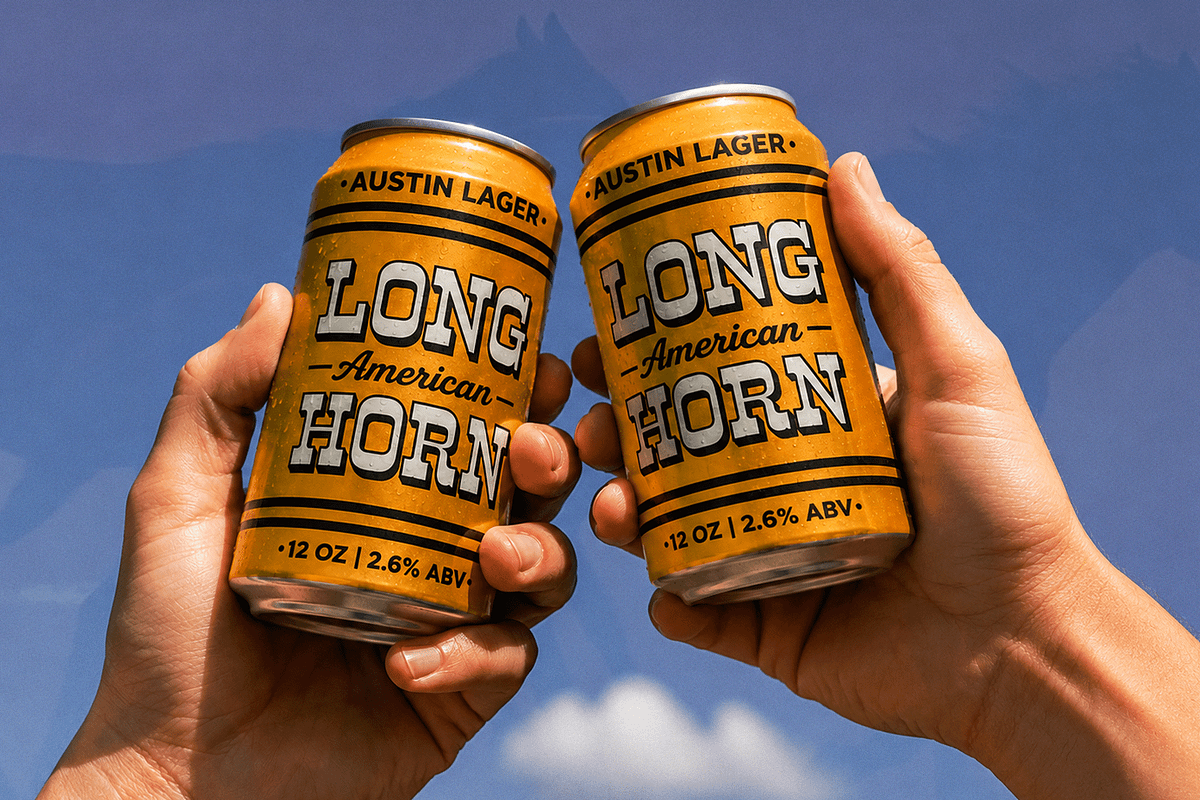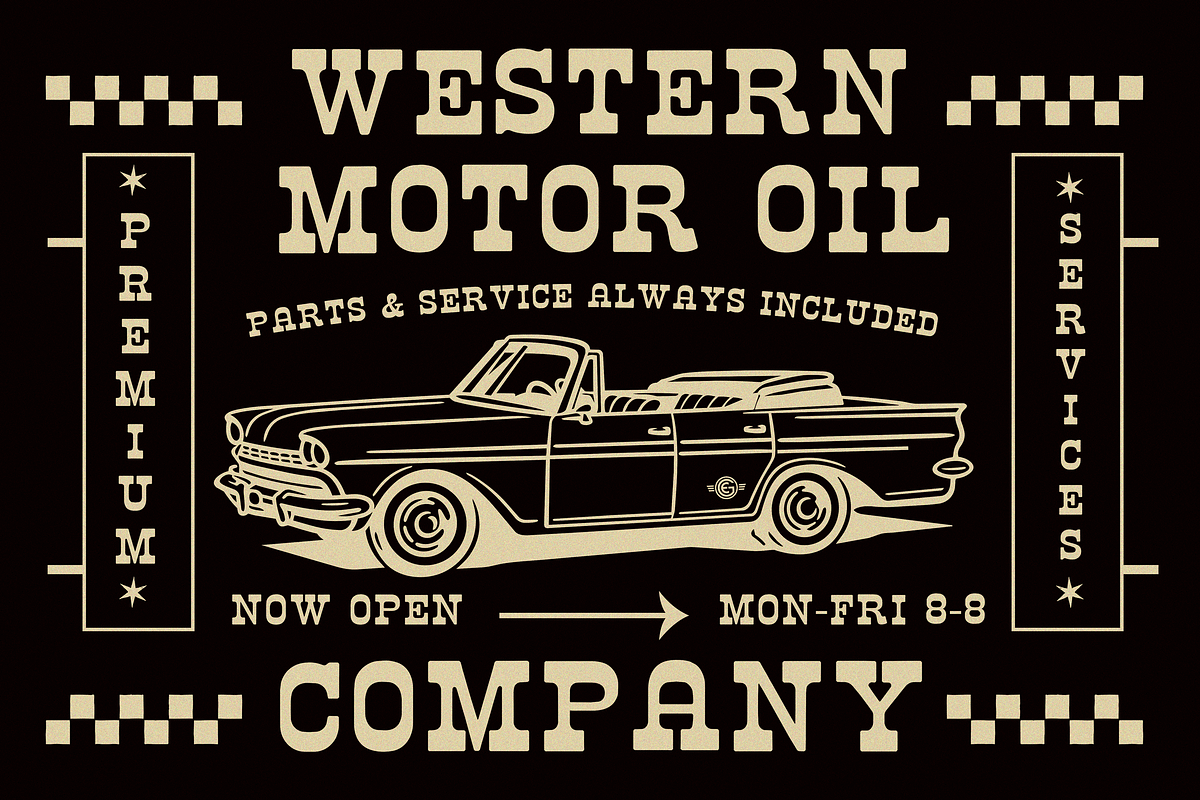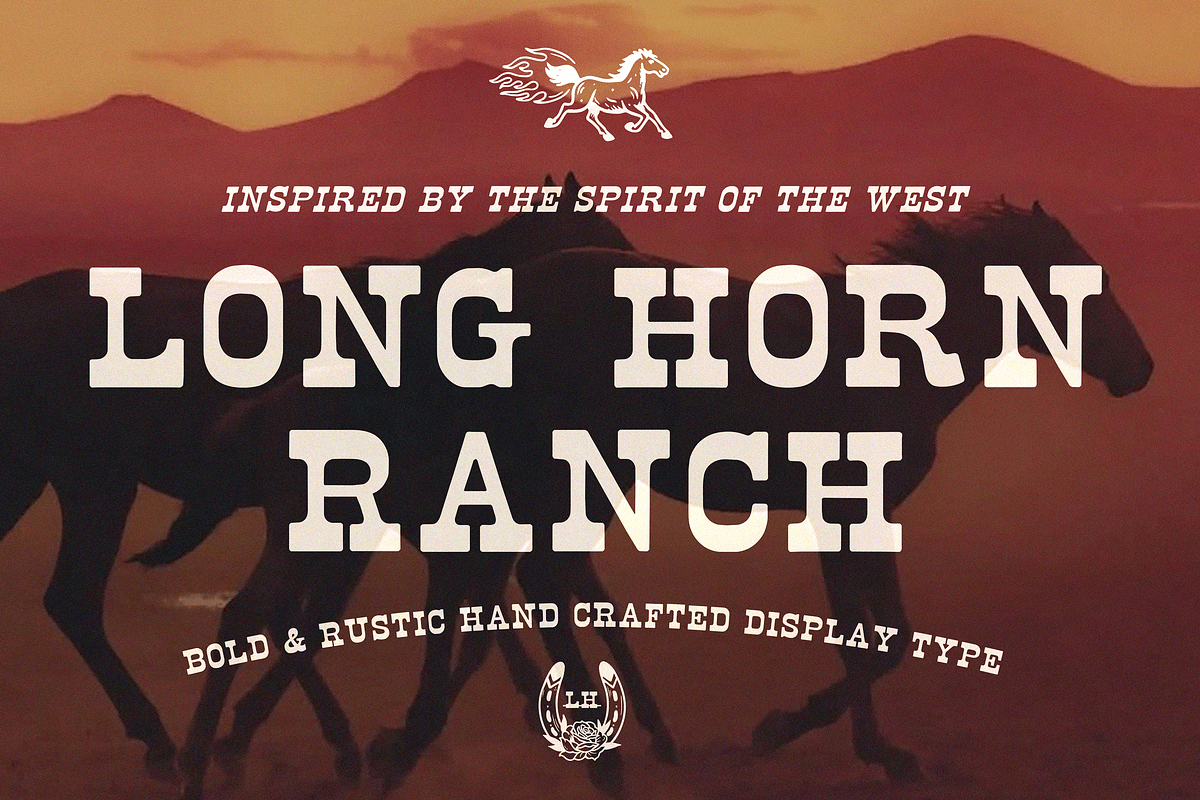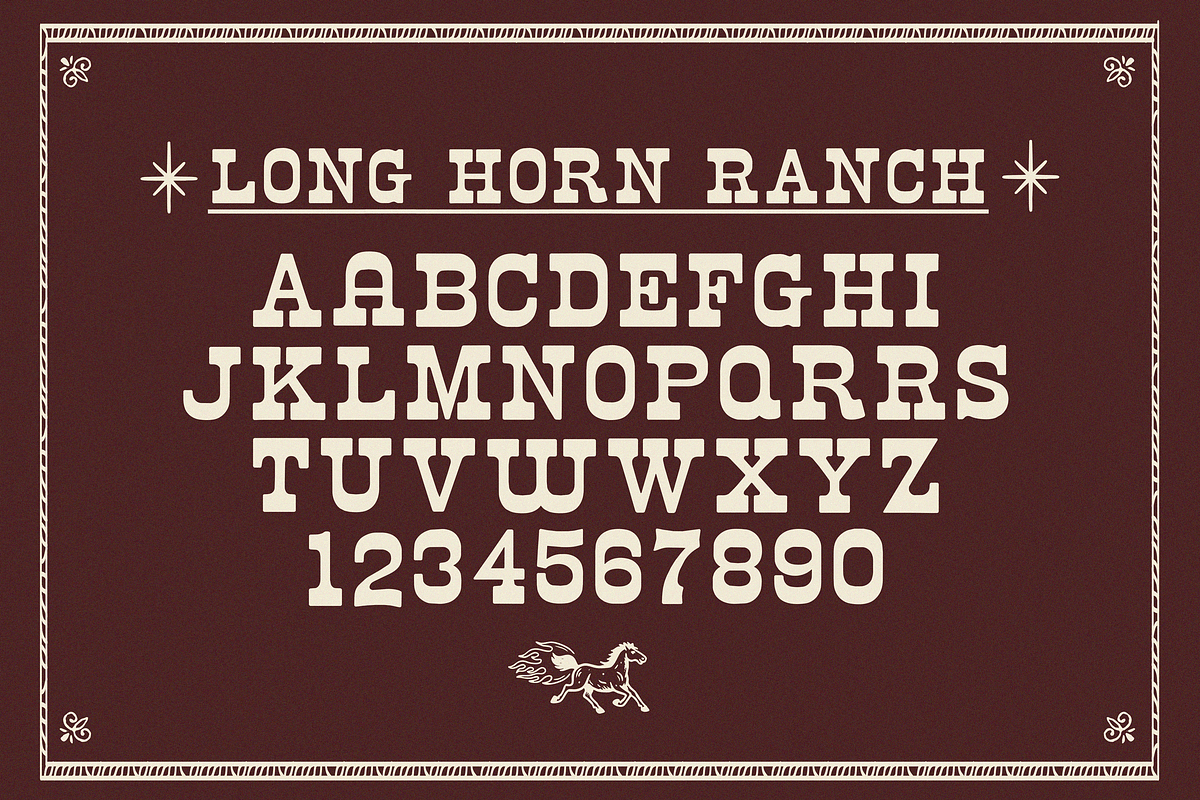
LONG HORN RANCH DISPLAY FONT
This Western inspired slab serif is all about big, bold lettering with a little old school Texas charm. Inspired by cowboy culture, vintage saloon signs, rodeo posters, and roadside lettering, it has chunky serifs and plenty of personality while still being super easy to use. Long Horn Ranch is imperfect and hand-made.
Perfect for branding, drink labels, apparel, packaging, posters, signage, or anything that could use a little cowboy character. Whether it’s stamped across a ranch label, printed on a vintage tee, or hanging above your favorite watering hole, it brings a little dust, grit, and Western spirit wherever it goes.